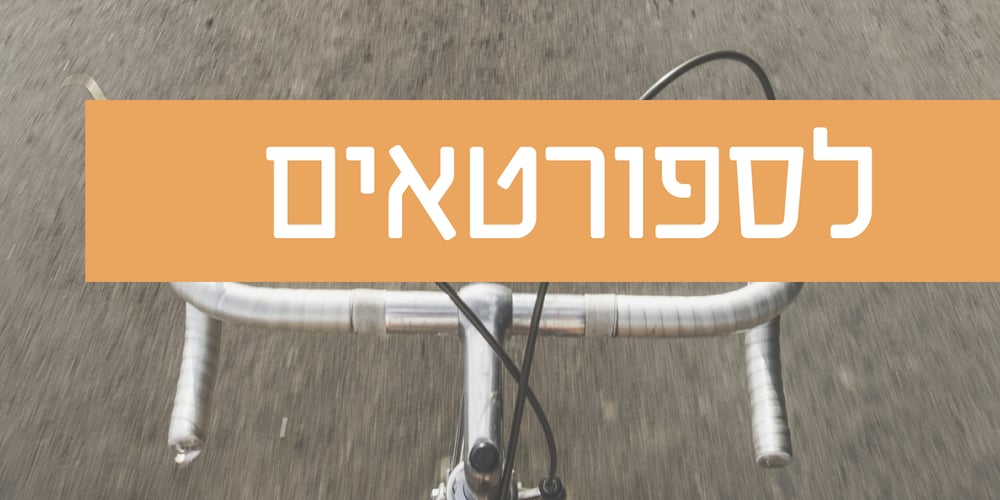
Tamrurim Round MF
Tamrurim Round MF font
Tamrurim Round MF Font Family was designed by Zvika Rosenberg, Masterfont Design and published by Masterfont. Tamrurim Round MF contains 3 styles and family package options. This is the elegant version of the Tamrurim family – great for test, captions, posters, you name it.